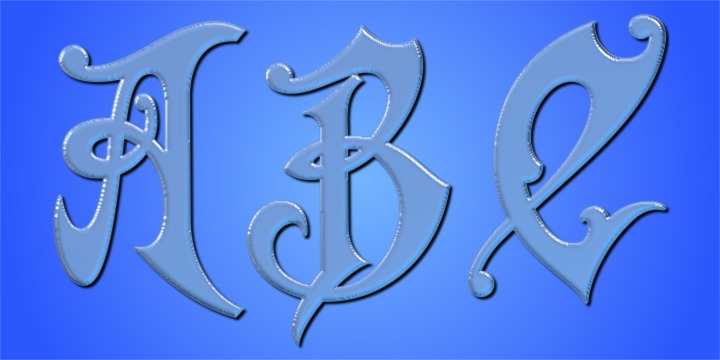
Gothic Initials Two is part of a three font set including Gothic Initials One and Gothic Initials Three.
Each Gothic Initials font was inspired by the beautifully-written gothic scripts of medieval scribes.
Each font contains the upper case letters A through Z under both the character set and shift+character set. These fonts are intended for use as initials, monograms, drop caps or wherever fancy letters are desired.